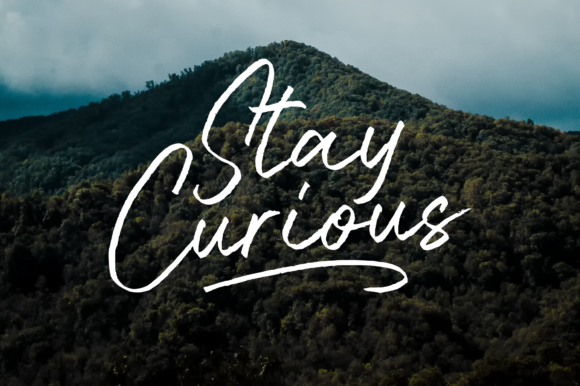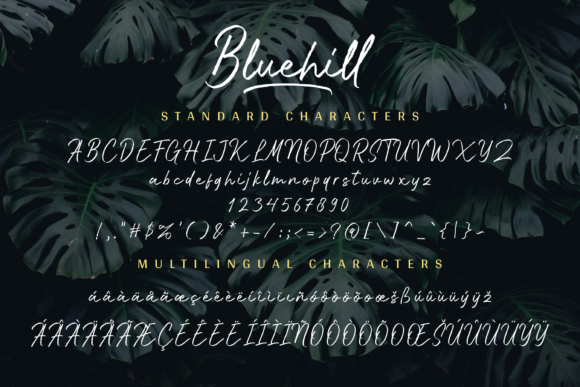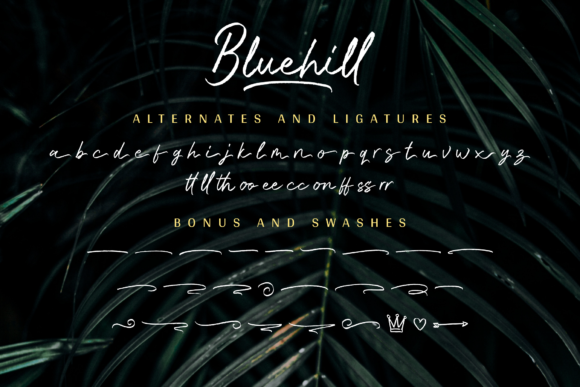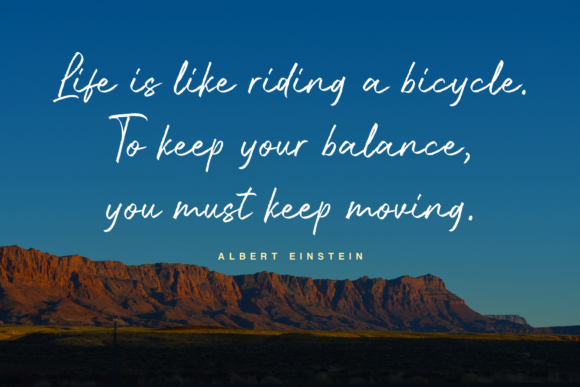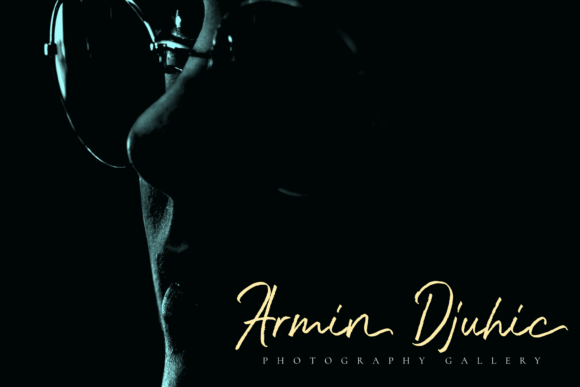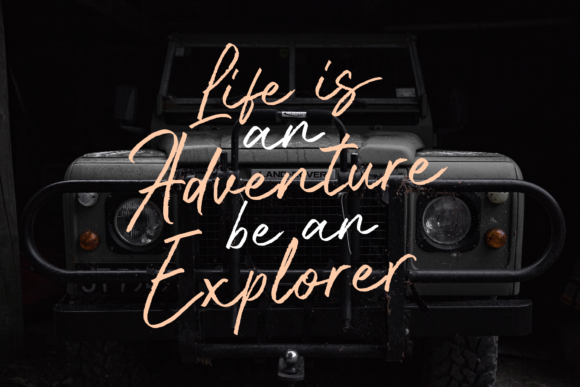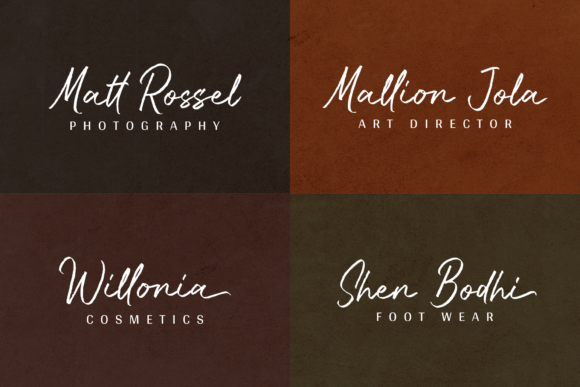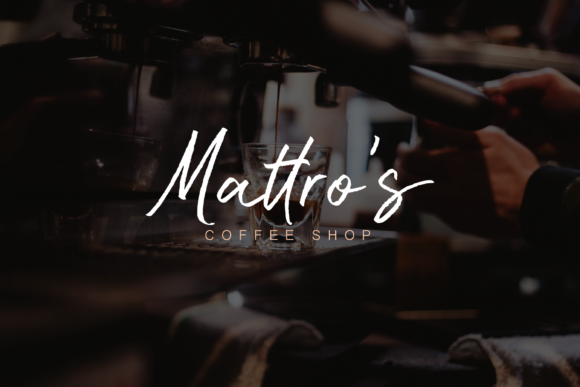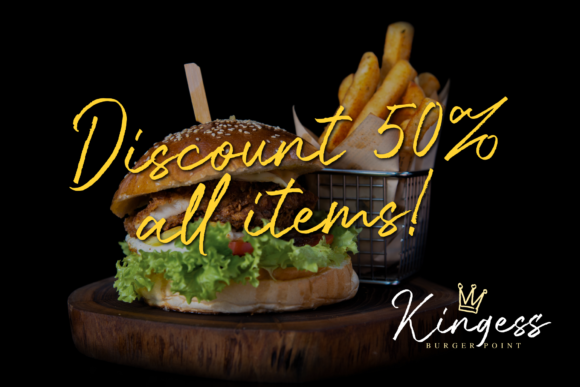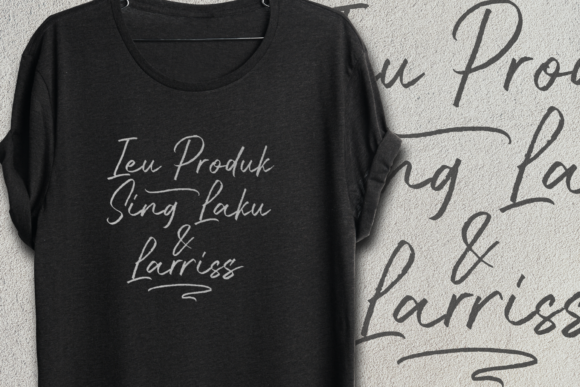
Bluehill Font
About Bluehill Font
Bluehill is a stunningly charming and cool handwritten font with a bold feel. It will add a level of sophistication to any design project.